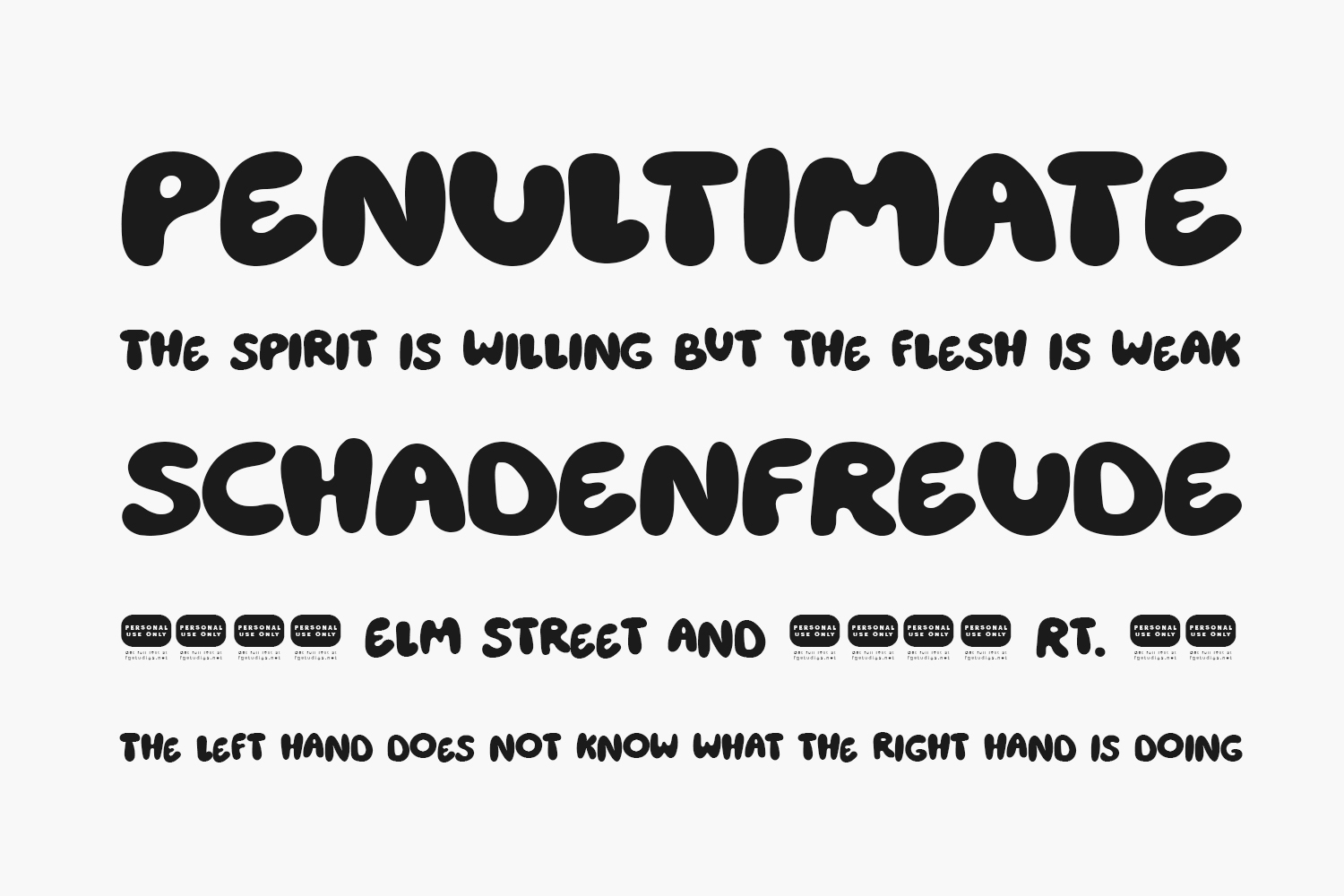
Heyam Free Font – Stylish Script for Bold Typography
Heyam is a bold and stylish script font designed by FG Studios to bring expressive energy and modern flair to your creative projects. With its clean strokes, high contrast, and elegant structure, this free decorative typeface works perfectly for crafting powerful logos, posters, branding materials, and more. Available in TTF format — ideal for designers looking to create attention-grabbing visuals with a contemporary handwriting style.
Why Choose Heyam?
- Stylish Handwriting Style: Combines elegance with strength for a modern calligraphic look.
- Ideal for Display Design: Perfect for large text applications like billboards, headers, or animated banners.
Where to Use Heyam?
Heyam shines across a variety of creative applications:
- Logos & Branding: Adds character to brand identities for lifestyle blogs, fashion labels, or boutique studios.
- Poster & Billboard Design: Designed for visibility — makes headlines pop in outdoor advertising.
- Social Media Graphics: Creates bold text overlays for Instagram Stories, TikTok videos, or YouTube thumbnails.
- Packaging Design: Brings uniqueness to product tags on novelty items, greeting cards, or handmade goods.
- Editorial Headers: Stands out in blog headers, magazine covers, and digital banners with a refined tone.
Design Tips with Heyam
To get the most from Heyam, pair it with minimalist sans-serif fonts like Ketika Sans or Densia Sans for contrast and readability. Use this font at large sizes to highlight its expressive detailing and organic flow. For print work, apply subtle shadows or outlines to enhance legibility on textured backgrounds. Try our interactive font preview tool below to test Heyam with your own text before downloading!
- Glyphs: Uppercase (A-Z), lowercase (a-z), numerals, punctuation, and basic Latin characters.
Designed by FG Studios